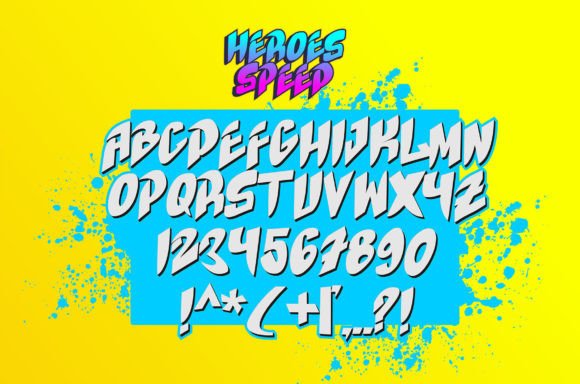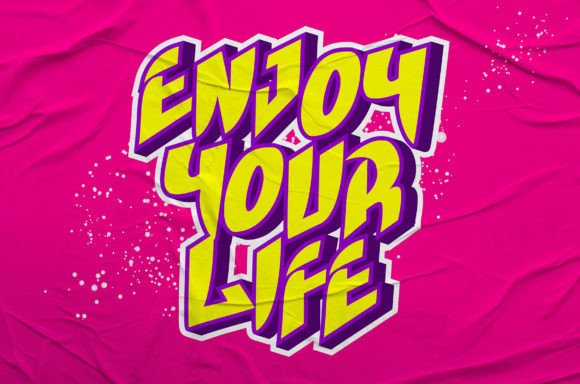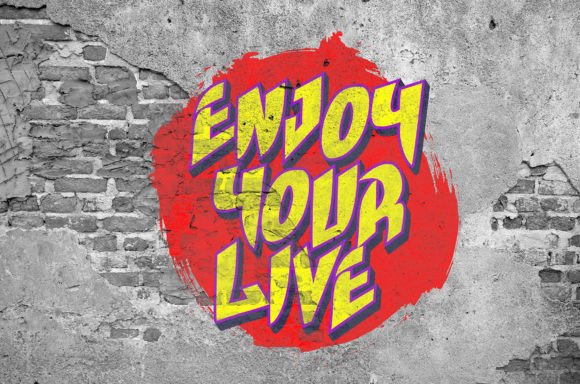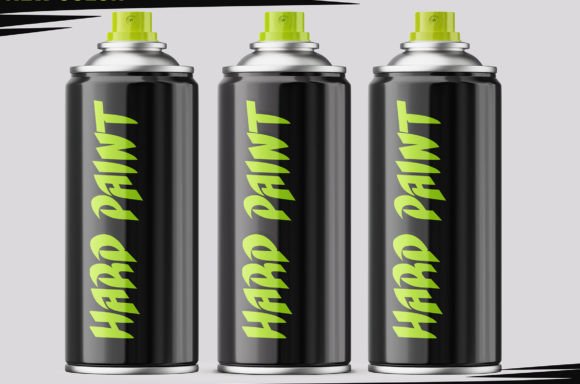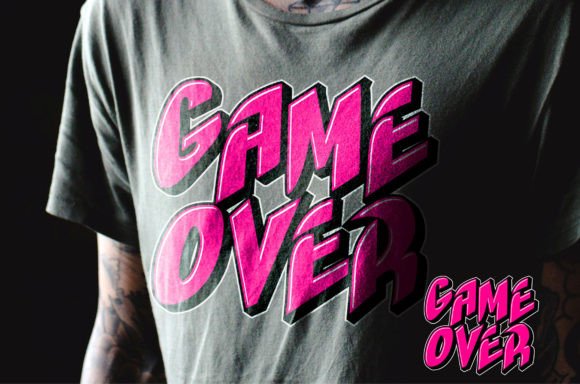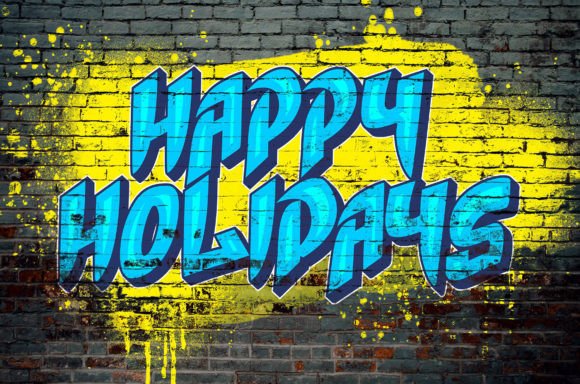
The Ultimate Display Font: Heroes Speed
Have you ever been in the middle of a design project, and suddenly, you’re stuck on finding the perfect font? I recall a recent experience where I was working on a branding project for a streetwear client, and I just couldn’t find a font that captured the edgy, cool vibe I was going for. That’s when I stumbled upon Heroes Speed, a spectacular display font that instantly elevated my design to the next level.
Heroes Speed: A Game-Changing Display Font
Heroes Speed is a fatty and cool graffiti-style font that’s perfect for making your designs look awesome. Its versatility makes it suitable for a wide range of projects, including branding, headings, designs, invitations, signatures, logotype, streetwear, wall art illustration, apparel, labels, and much more!
• 💥 Impactful and attention-grabbing: Heroes Speed is a bold font that instantly grabs attention, making it perfect for headings, titles, and display text.
• 🎨 Highly versatile: This font can be used for various design projects, from branding and advertising to streetwear and apparel.
• 👍 Easy to read: Despite its bold and edgy style, Heroes Speed remains surprisingly legible, even at smaller sizes.
• 🤩 Unique and creative: The font’s graffiti-inspired style adds a touch of personality and flair to any design.
Small Quirks and Limitations ⚠️
• 🤔 Limited use for body text: Due to its bold and edgy style, Heroes Speed might not be the best choice for body text or longer paragraphs.
• ⚠️ Requires careful kerning: As with any bold font, kerning can be a bit tricky, especially when using it for titles or headings.
One of the best things about Heroes Speed is its OpenType features and glyphs. These allow you to customize your text and add more personality to your design. Some of the features you can explore include:
• Stylistic alternates: Switch between different font styles to create a unique look.
• Glyphs: Access a range of alternative characters and symbols to add more flair to your text.
The creator of Heroes Speed drew inspiration from the streets, where graffiti and street art reign supreme. With a passion for bold, edgy designs, the designer aimed to create a font that would capture the essence of urban style and attitude.
Q: What type of designs is Heroes Speed best suited for?
A: Heroes Speed is perfect for designs that require a bold, edgy font, such as branding, headings, streetwear, and apparel.
Q: Can I use Heroes Speed for body text?
A: While Heroes Speed is legible, it’s not ideal for body text due to its bold and edgy style. It’s best used for headings, titles, and display text.
Q: Is Heroes Speed easy to read?
A: Yes, despite its bold style, Heroes Speed remains surprisingly legible, even at smaller sizes.